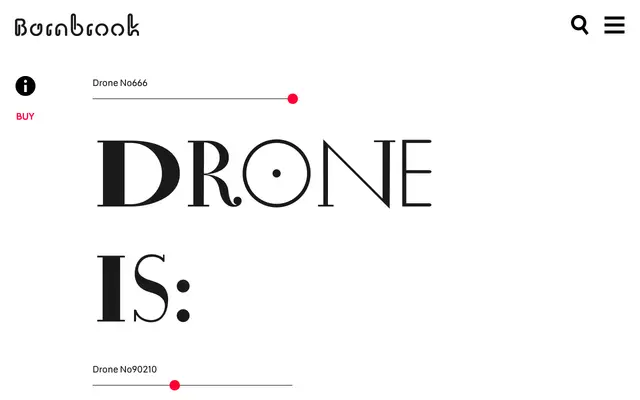
Drone
A deliberately misproportioned display face drawn from naive hand-lettered Catholic church signage found in the Philippines and Los Angeles.
Inspired by amateur lettering in Spanish/Hispanic Catholic churches that attempted to echo the grandeur of the Vatican but arrived somewhere entirely their own, Drone captures the charm of forms that are copies of copies. The letterforms also carry traces of 16th-century English calligraphy, giving the face an unexpected historical depth beneath its vernacular surface. Barnbrook frames it conceptually as the low hum of advertising and programmed persuasion, lending the typeface a pointed cultural edge.
Drone draws on hand-drawn ecclesiastical lettering and 16th-century English calligraphic forms, placing it firmly in the display category with a calligraphic subcategory. Its deliberately misproportioned, naive character distinguishes it from conventional script or serif families.